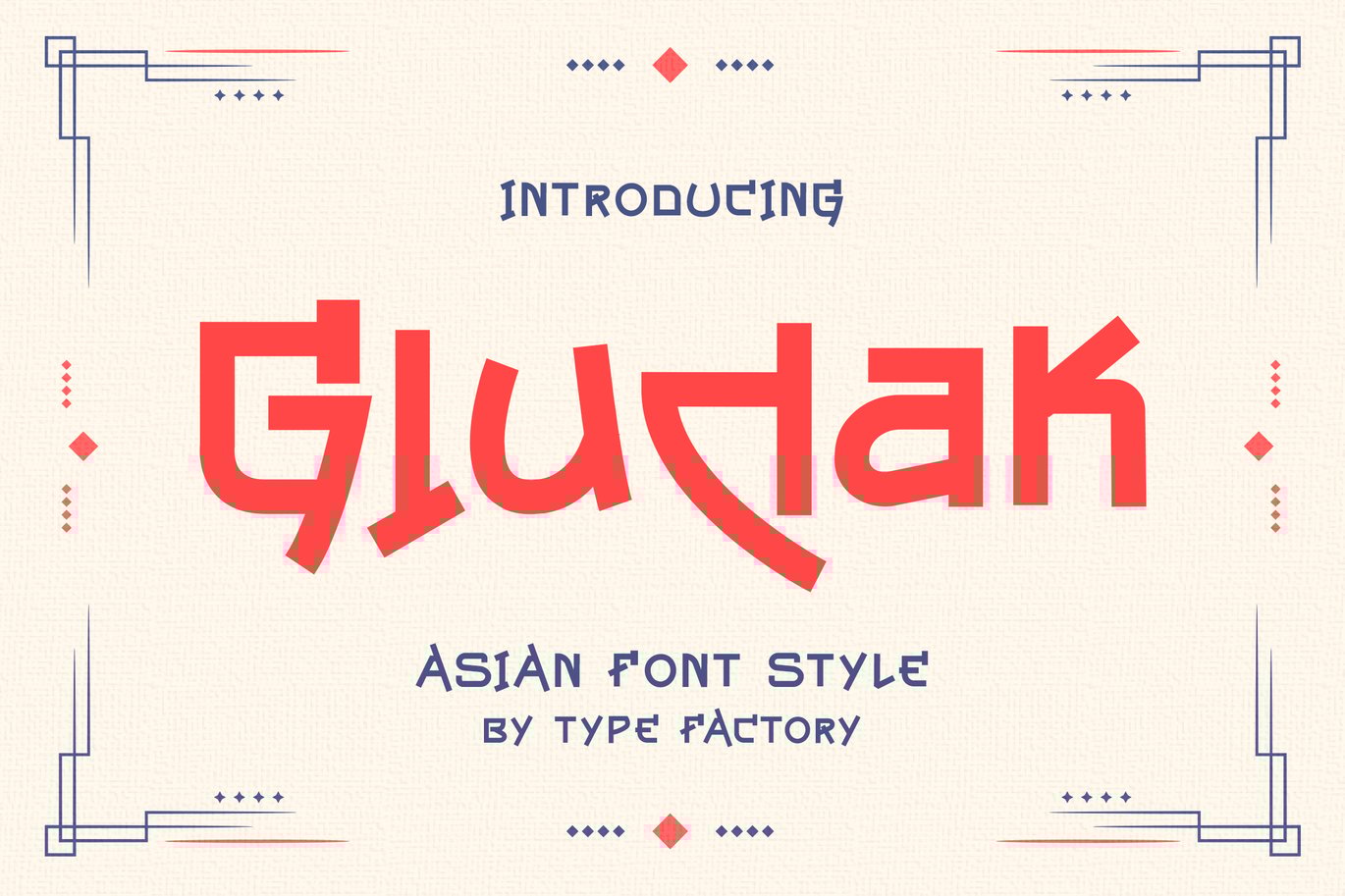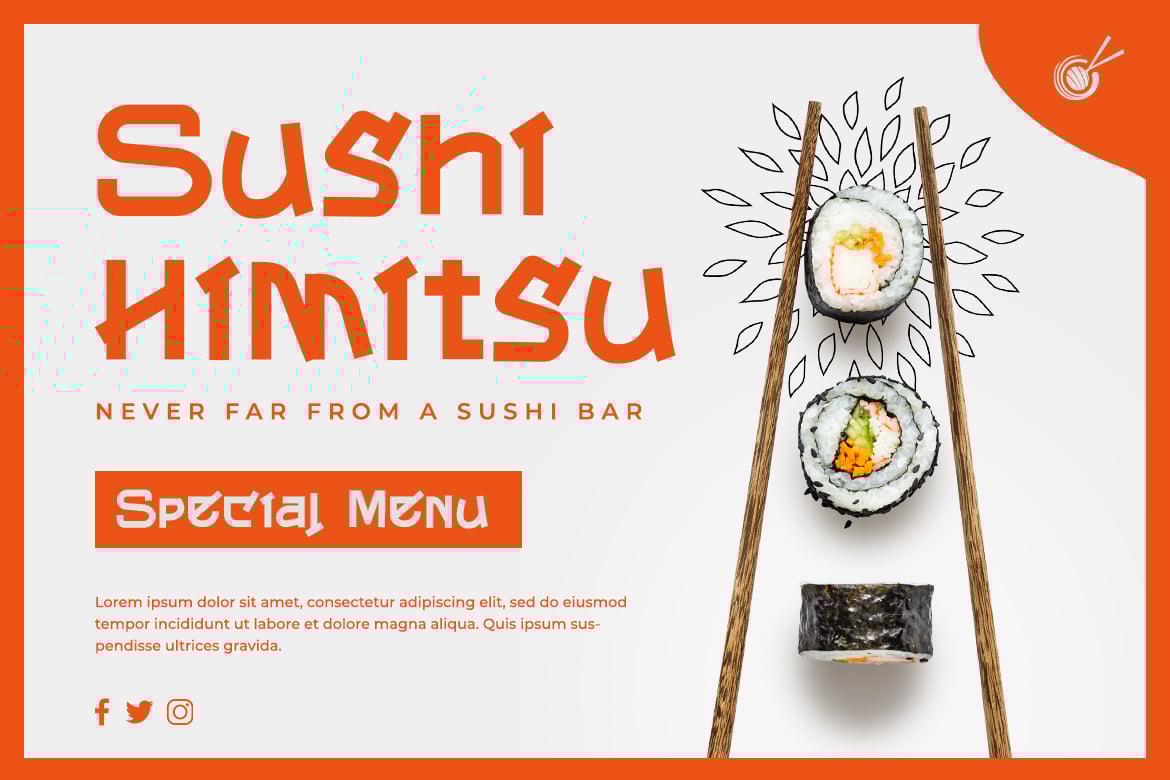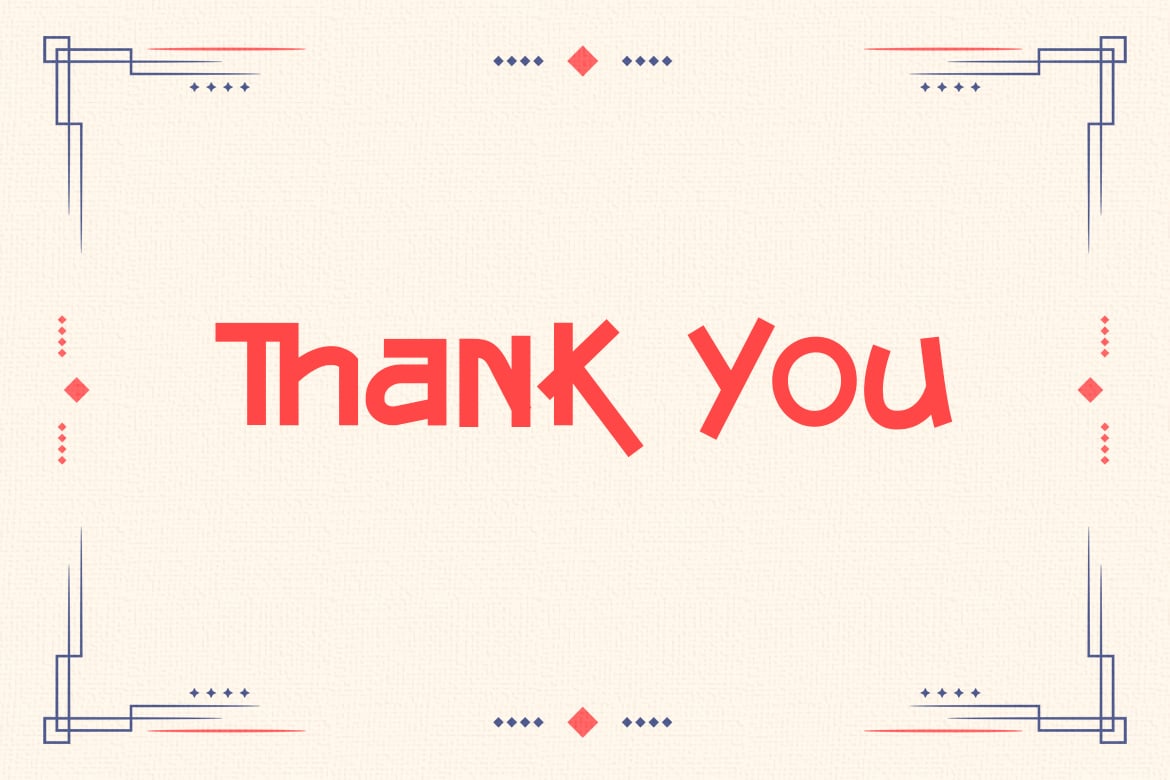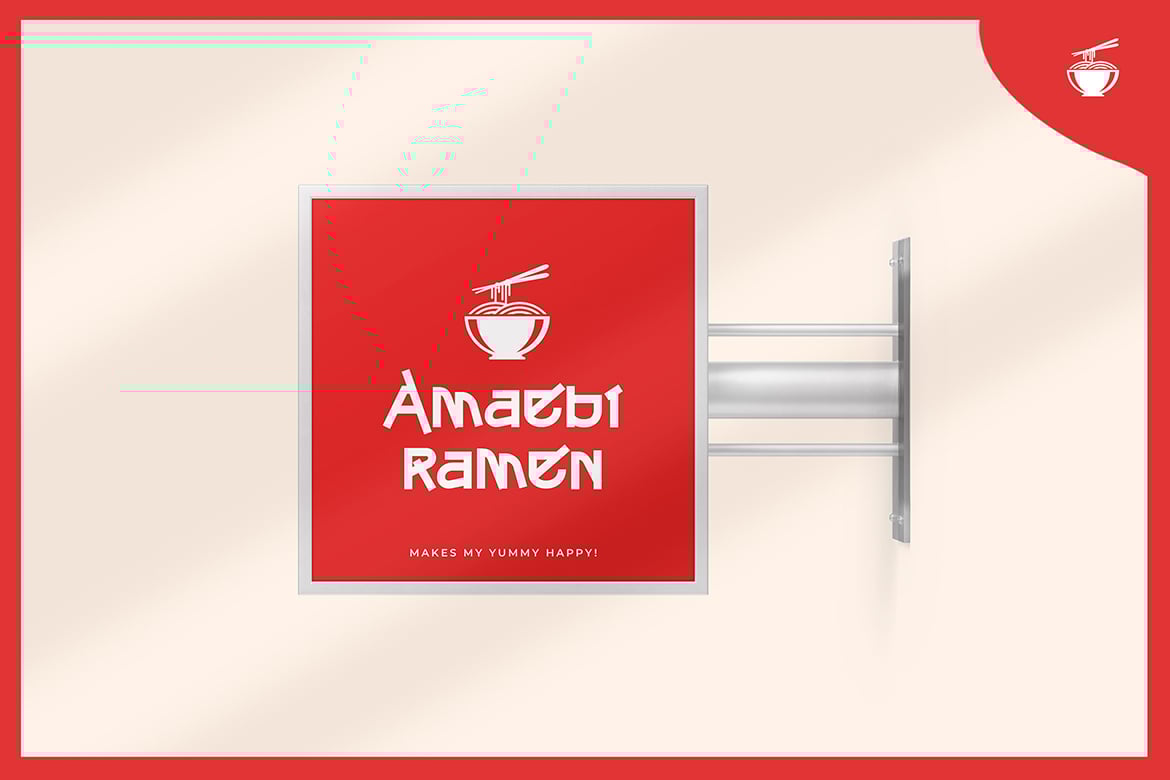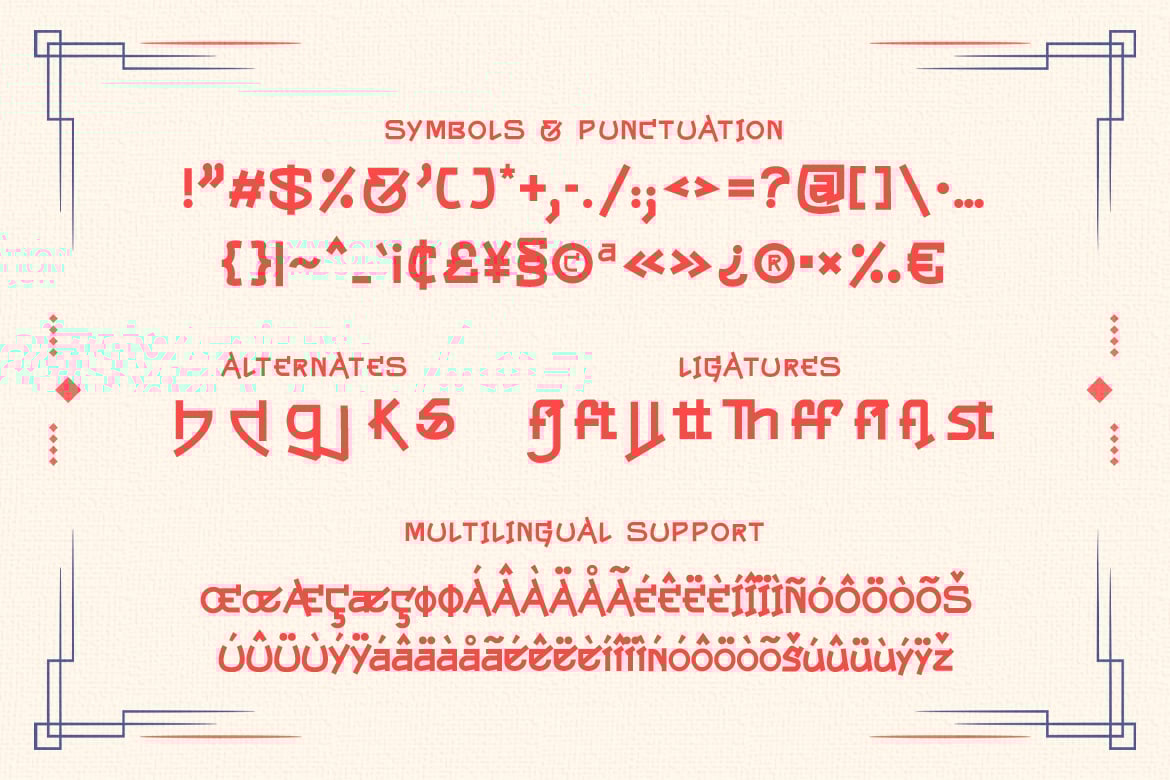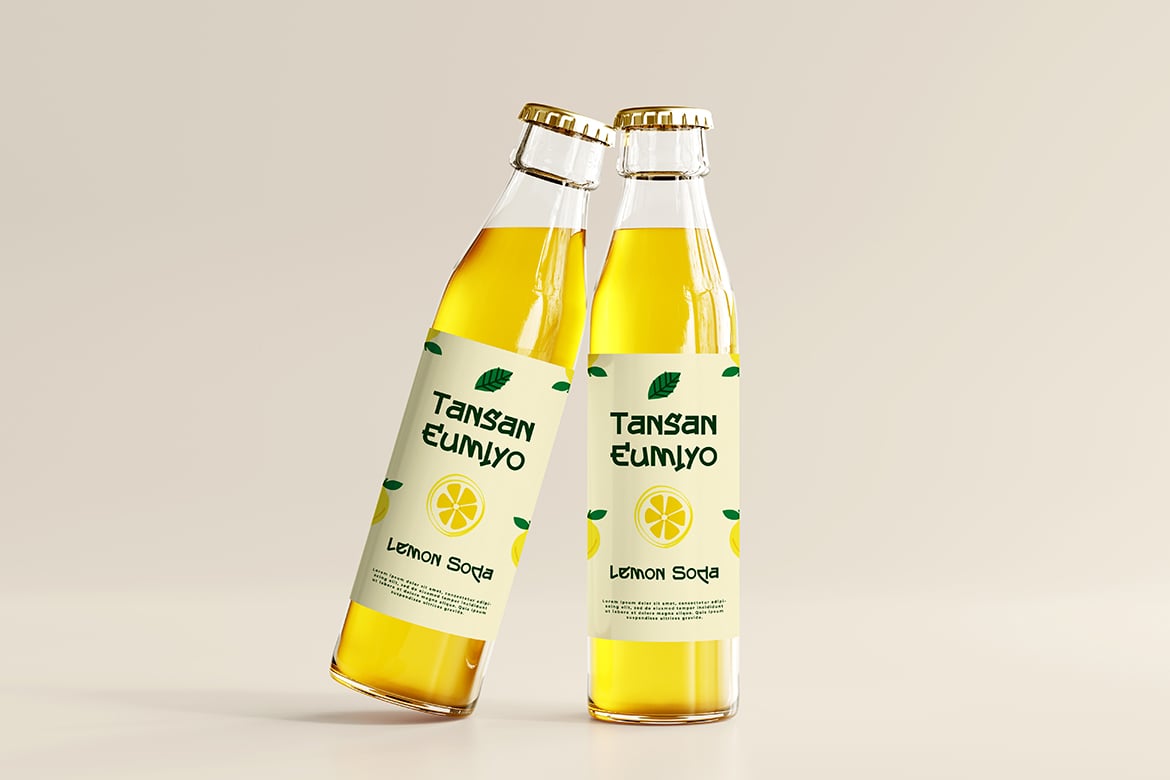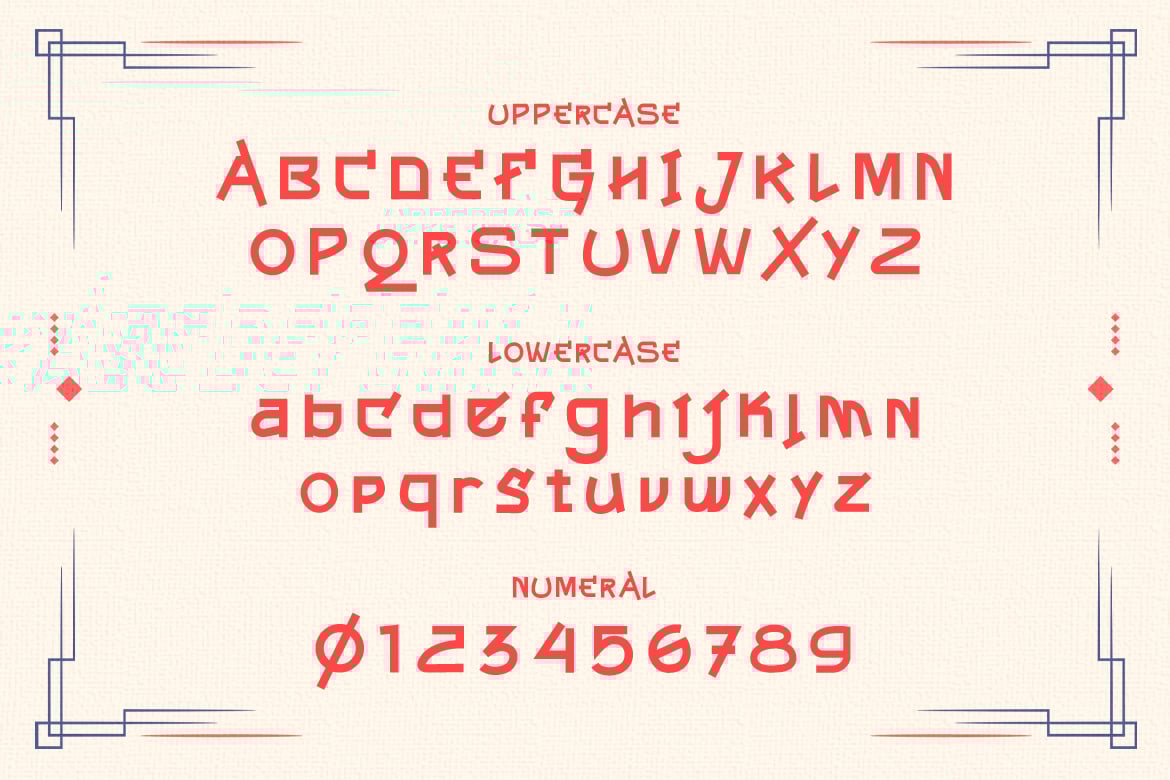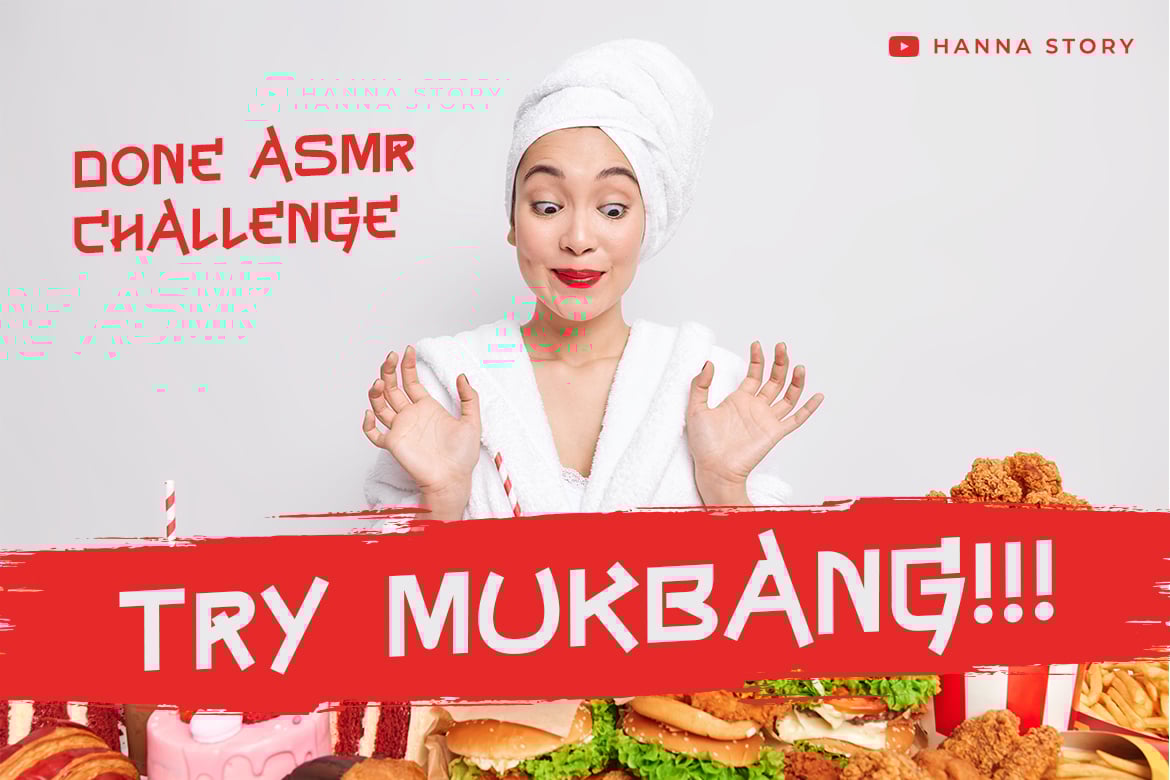
Gludak – Asian Font Style
Gludak is a simple Asian font.
It has great readability and will add a striking touch to any design!
It will look awesome on any food menu, print, or restaurant brand!